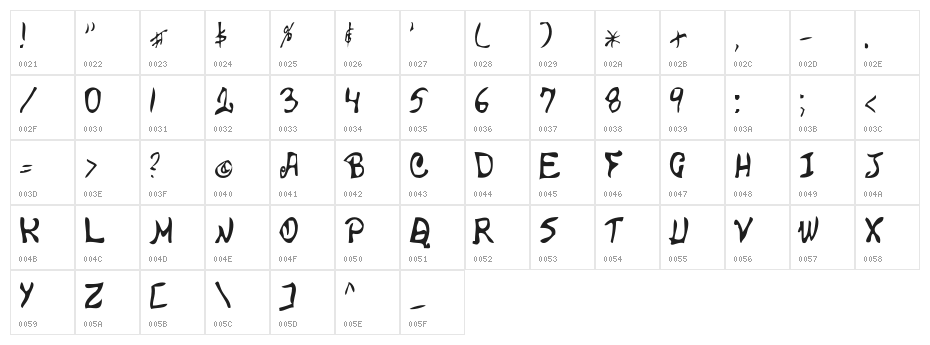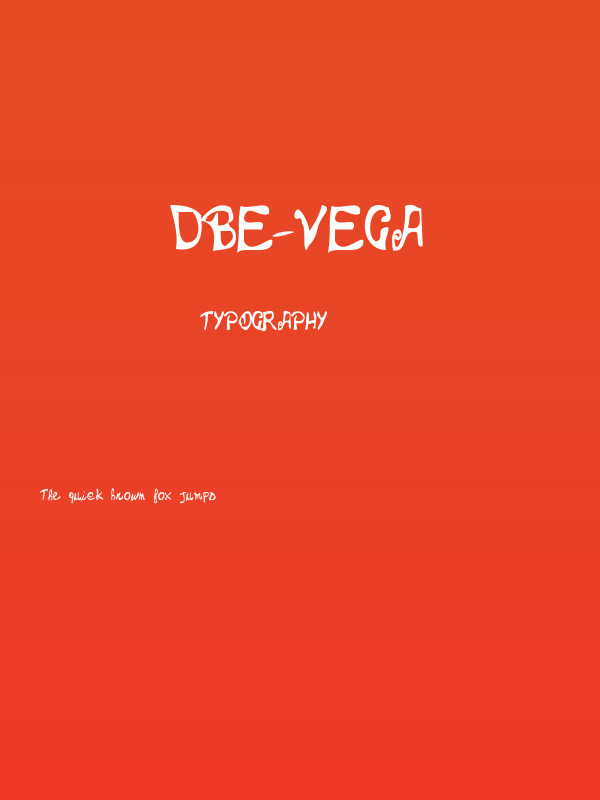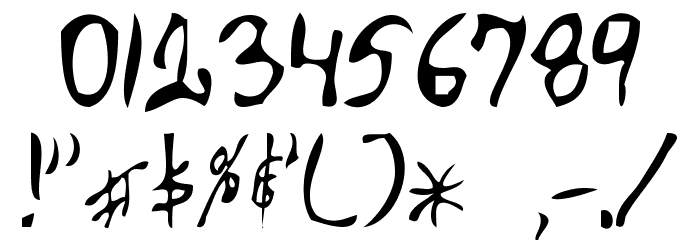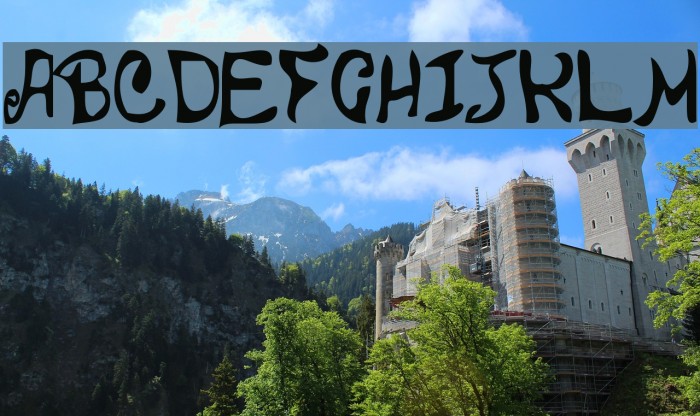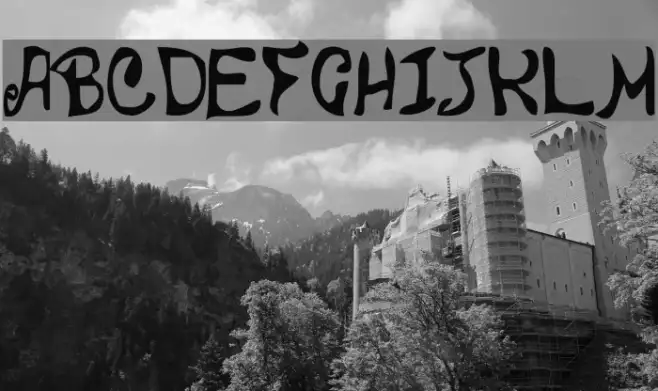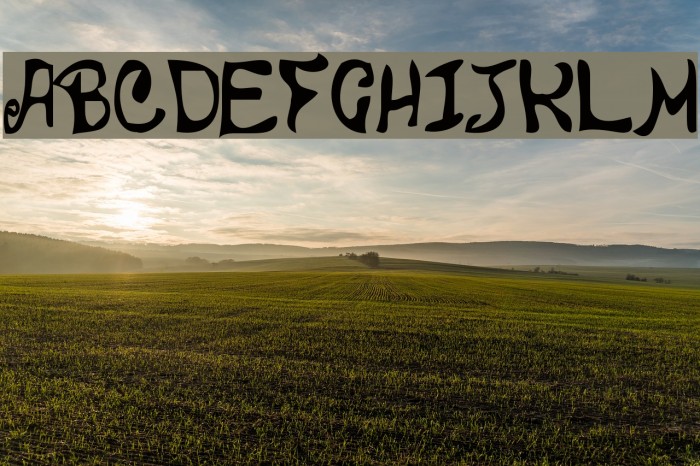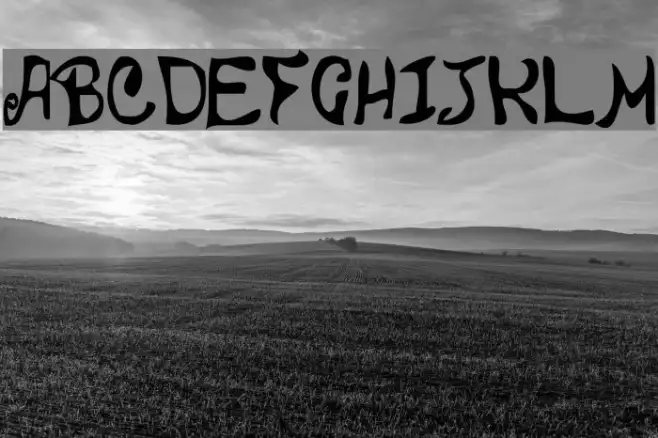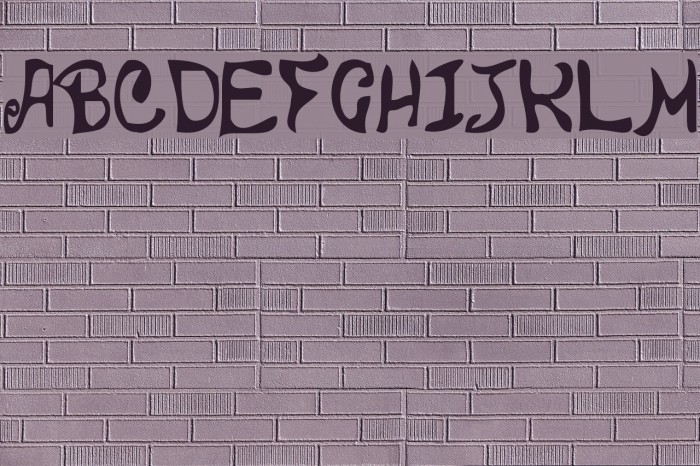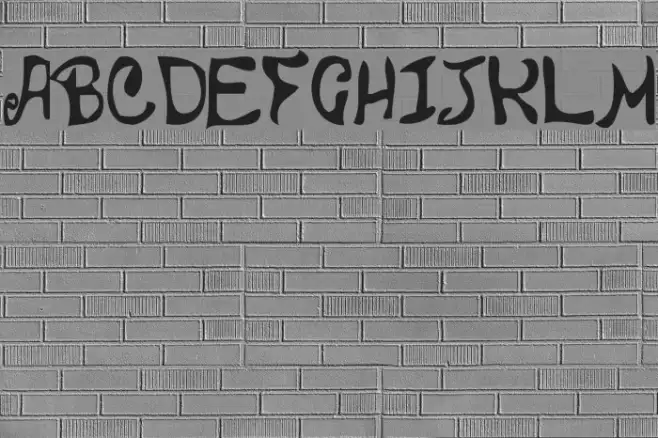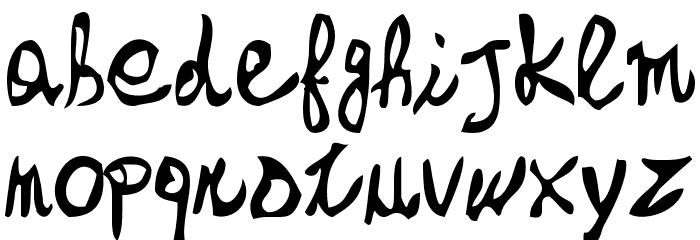
DBE-Vega Font
DBE-Vega Description
This font exhibits a dynamic and expressive style, characterized by its bold, flowing strokes and irregular shapes. The letters are crafted with a sense of movement, giving them an energetic and lively appearance. The uppercase letters are bold and prominent, while the lowercase letters maintain a consistent style with a slightly more compact form. The numerals are distinctive, with a playful yet legible design. Special characters are creatively integrated, maintaining the overall aesthetic. This font's unique style makes it suitable for projects that require a touch of creativity and individuality.
| Proposed Projects | Ideal for artistic projects, branding, posters, and creative designs that require a unique and lively touch. |